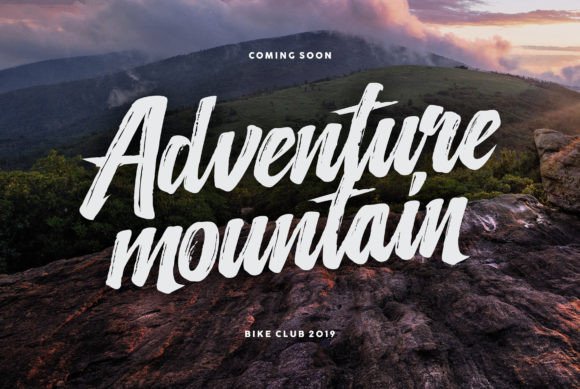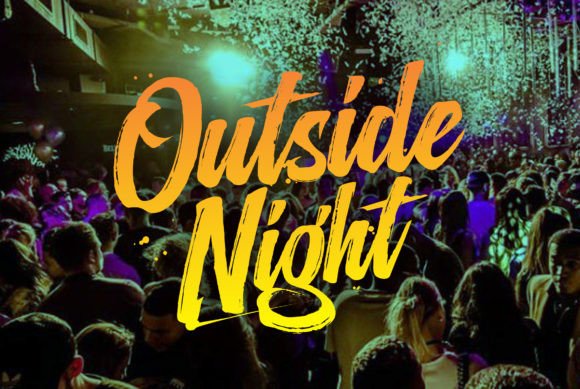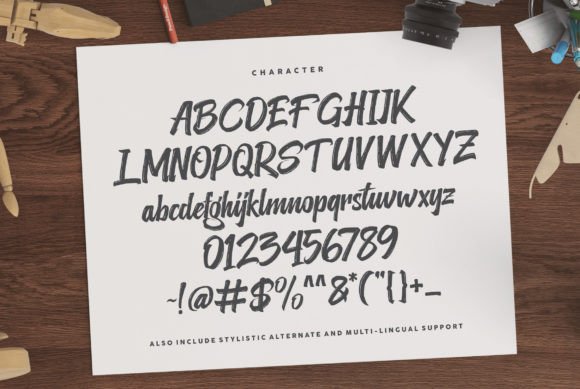
Introduction to Hunting Season Font
Hunting Season is cool and bold handwritten brush font.
Key Features of Hunting Season Font
Why Choose Hunting Season Font?
Hunting Season Font offers exceptional quality and versatility, making it a valuable addition to your design toolkit. Whether you’re creating for personal projects or commercial use, Hunting Season Font delivers professional results.